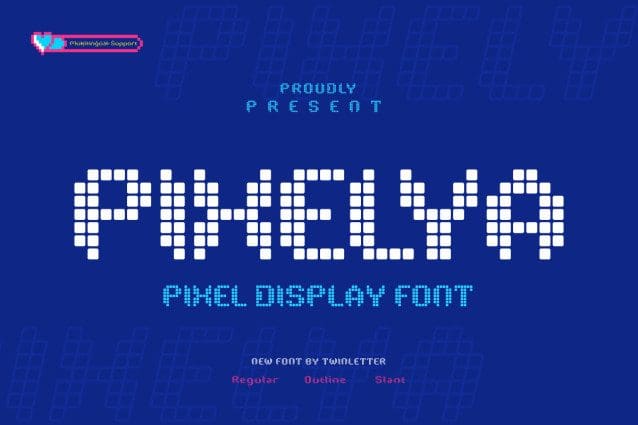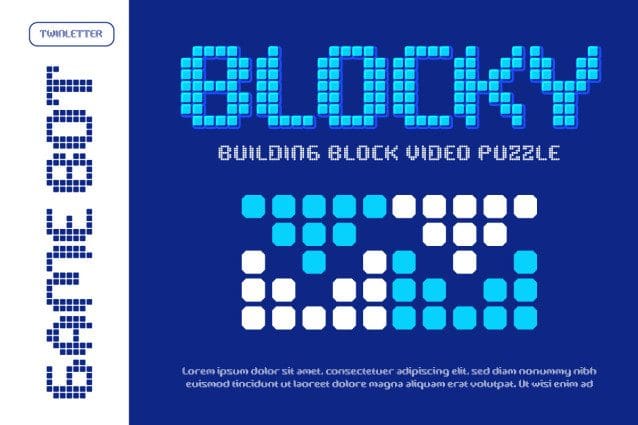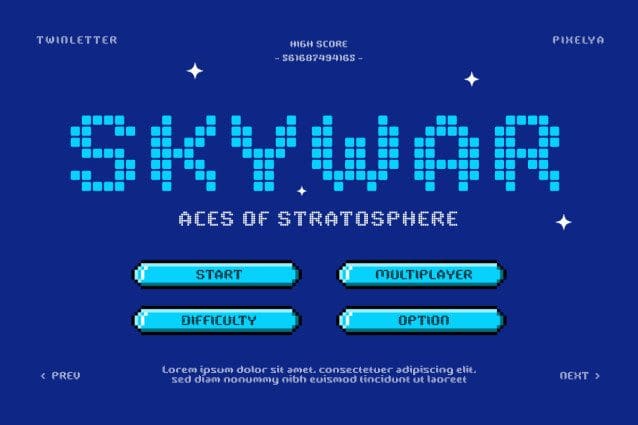
Pixelya Pixel Font
Pixelya Pixel Font is a display typeface that embraces the pixel aesthetic, creating a look suitable for gaming projects and designs with a pixel art feel. This font is designed to express a retro touch and creative elements in a visual experience, often used in game titles, in-game text, or other design elements that require a pixelated aesthetic.
Each letter in Pixelya Pixel emits vivid pixel characteristics, creating a look true to the classic video game era. The font maintains clarity and readability while featuring a signature pixel art graphic style that invites joy and nostalgia.
Pixelya’s color palette can include a variety of bright and contrasting colors, similar to the color palettes often used in retro games. Using these colors can enhance the aesthetics of pixel art and give it an attractive appearance.
Pixelya Pixel is ideal for those who want to give a classic touch to their game design projects or create a fun retro atmosphere. This font can create an authentic visual experience and give a unique character to designs inspired by the world of classic video games.